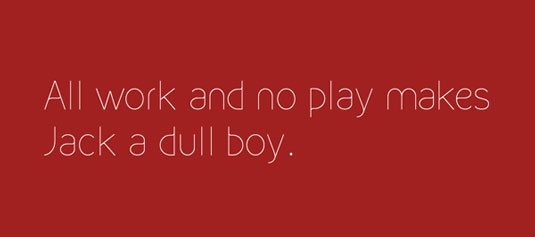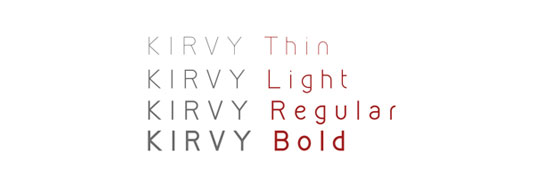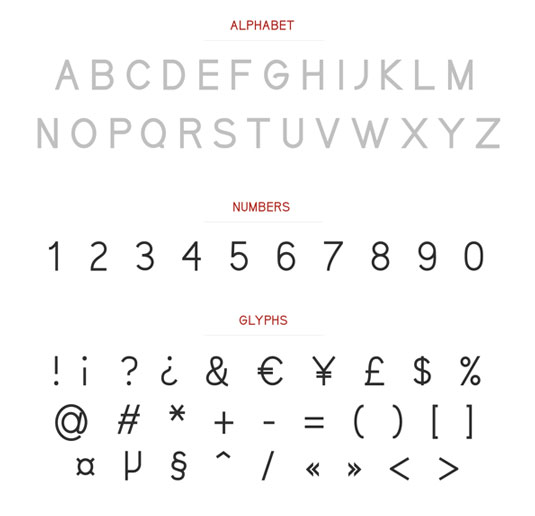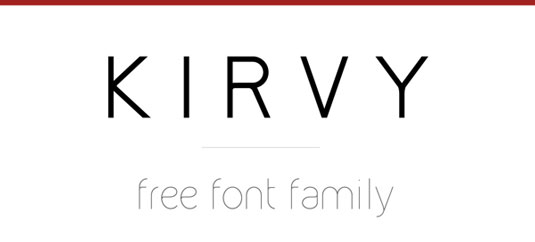
Font of the day: Kirvy
Kirvy by Youssef Habchi
A simple and elegant sans serif font family, Kirvy was created by Strasbourg-based designer Youssef Habchi. The free design is available in four different weights; thin, light, regular and bold.